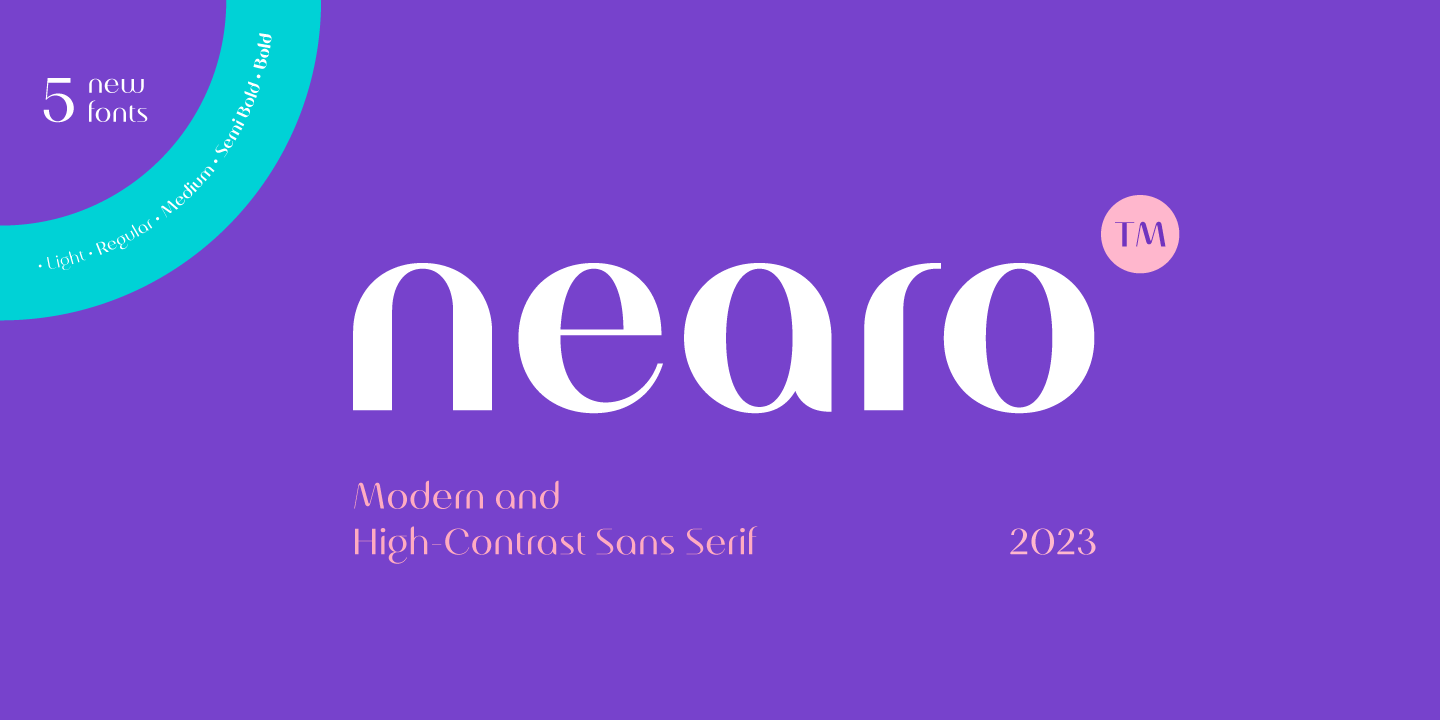
Please note, you must purchase this font for commercial use. You can download Nearo Font Free Download for testing purposes and explore its sleek, modern design. Nearo Font is perfect for contemporary branding, web design, editorial projects, and any design that requires a clean, professional appearance.
With its simple lines, geometric shapes, and balanced structure, Nearo Font brings a minimalist yet sophisticated touch to your designs. It’s ideal for creating logos, headlines, digital content, and print materials that demand clarity and style.
Nearo Font Free Download supports multilingual characters, making it versatile for global projects. Its legible design ensures readability across both digital and print formats, making it a great choice for a variety of creative applications.